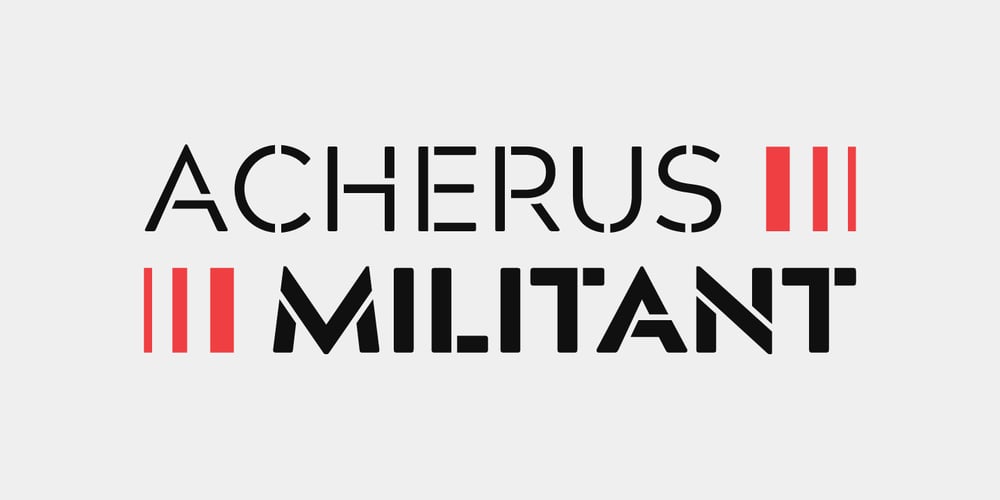
Acherus Militant Font Family was designed by Ufuk Aracıoğlu and published by Horizon Type. Acherus Militant contains 24 styles and family package options. Acherus Militant is stencil version of Acherus GrotesqueAcherus Militant Specimen